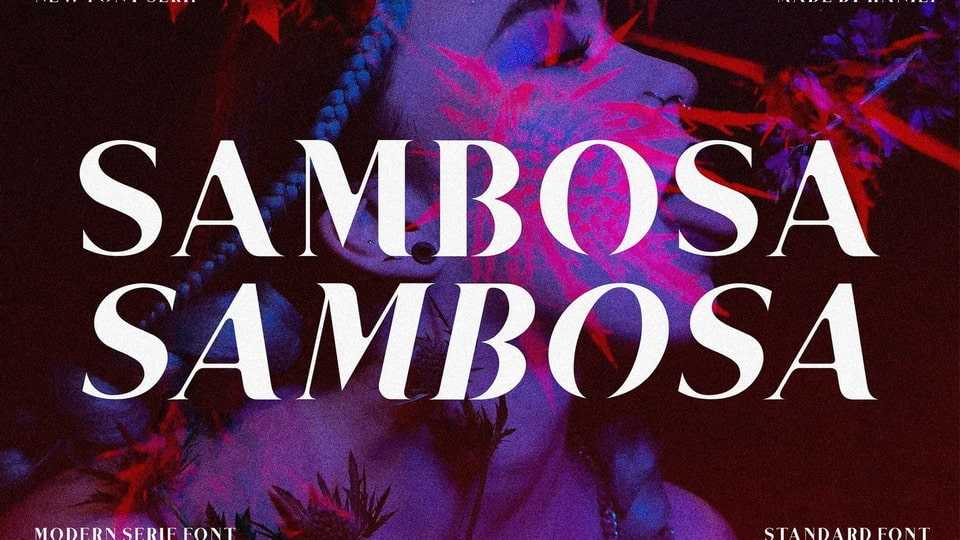
Download Sambosa font, a modern and stylish serif typeface, helps to create stunning logos, quotes, posts, blog posts, branding projects, magazine imagery, wedding invitations, and much more.